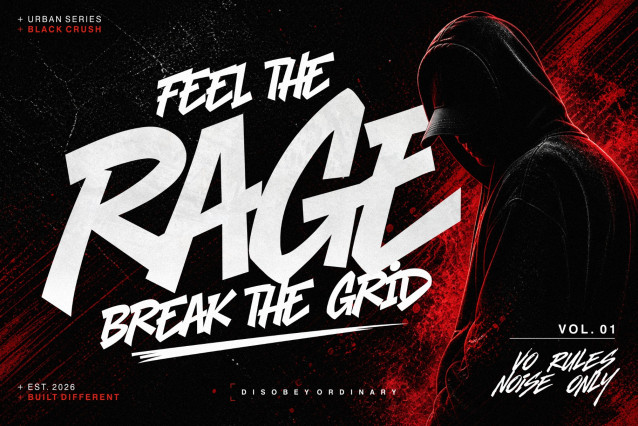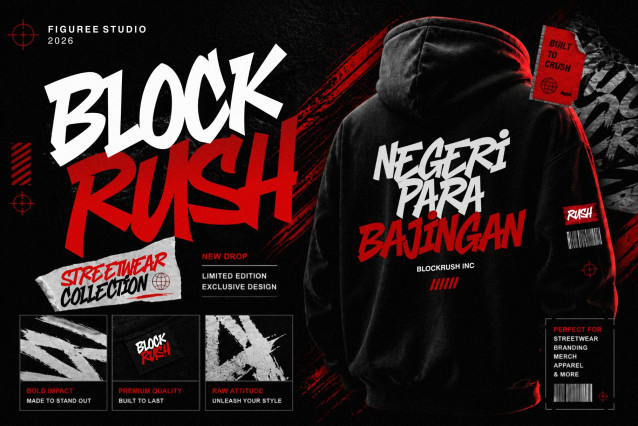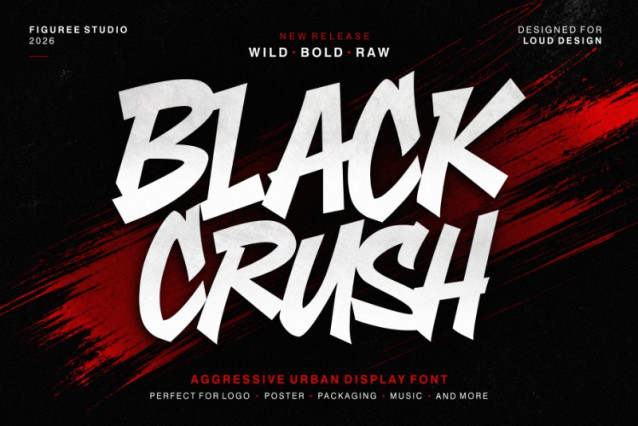
Black Crush Font
Black Crush Font – Aggressive Urban Font is the perfect choice. Designed with strong geometric shapes, sharp edges, and expressive urban aesthetics, this typeface is built for designers who want their work to stand out loudly and confidently.
This aggressive urban font works perfectly for posters, esports branding, cinematic titles, album covers, social media graphics, street-inspired visuals, and modern advertising campaigns. Whether you are designing for digital media or print projects, Black Crush brings a fearless and energetic personality into every layout.
Aggressive Urban Font with Powerful Street Energy
Black Crush was created to represent modern urban culture through typography. Unlike ordinary display fonts, this aggressive urban font combines sharp structure with rebellious visual character, creating a bold appearance that immediately captures attention.
The thick strokes and edgy letterforms make Black Crush ideal for impactful headlines and statement visuals. From music posters to gaming graphics, this font helps designers communicate strength, confidence, and intensity.